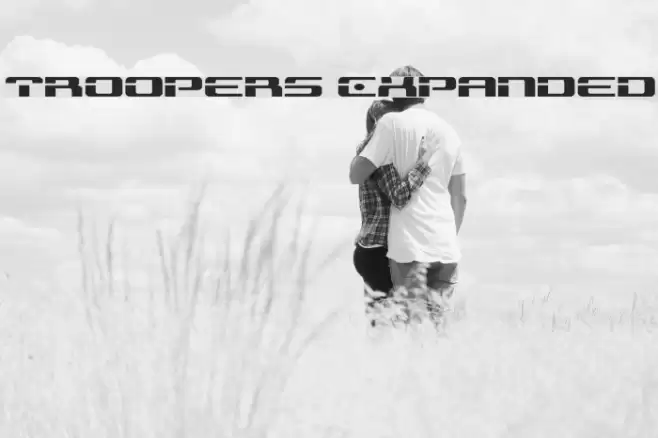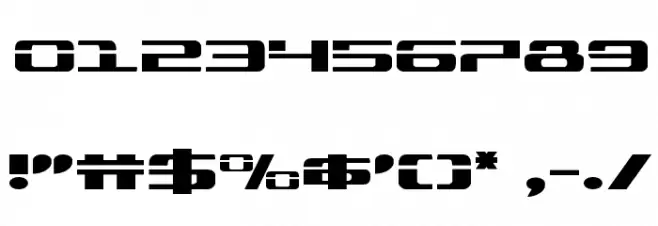
Troopers Expanded Font
Troopers Expanded Description
This font exhibits a futuristic and bold design, characterized by its geometric and angular shapes. The letters are constructed with a combination of solid and cut-out sections, creating a dynamic and visually striking appearance. The uppercase and lowercase letters maintain a consistent style, with a strong emphasis on horizontal and vertical lines. The numerals and special characters follow the same design principles, ensuring uniformity across all glyphs. This font's unique style makes it suitable for projects that require a modern and edgy aesthetic.
A futuristic, bold font with geometric and angular shapes from Uncategorized fonts.
- Proposed Projects: Ideal for sci-fi themed designs, video game titles, movie posters, and branding for tech companies.